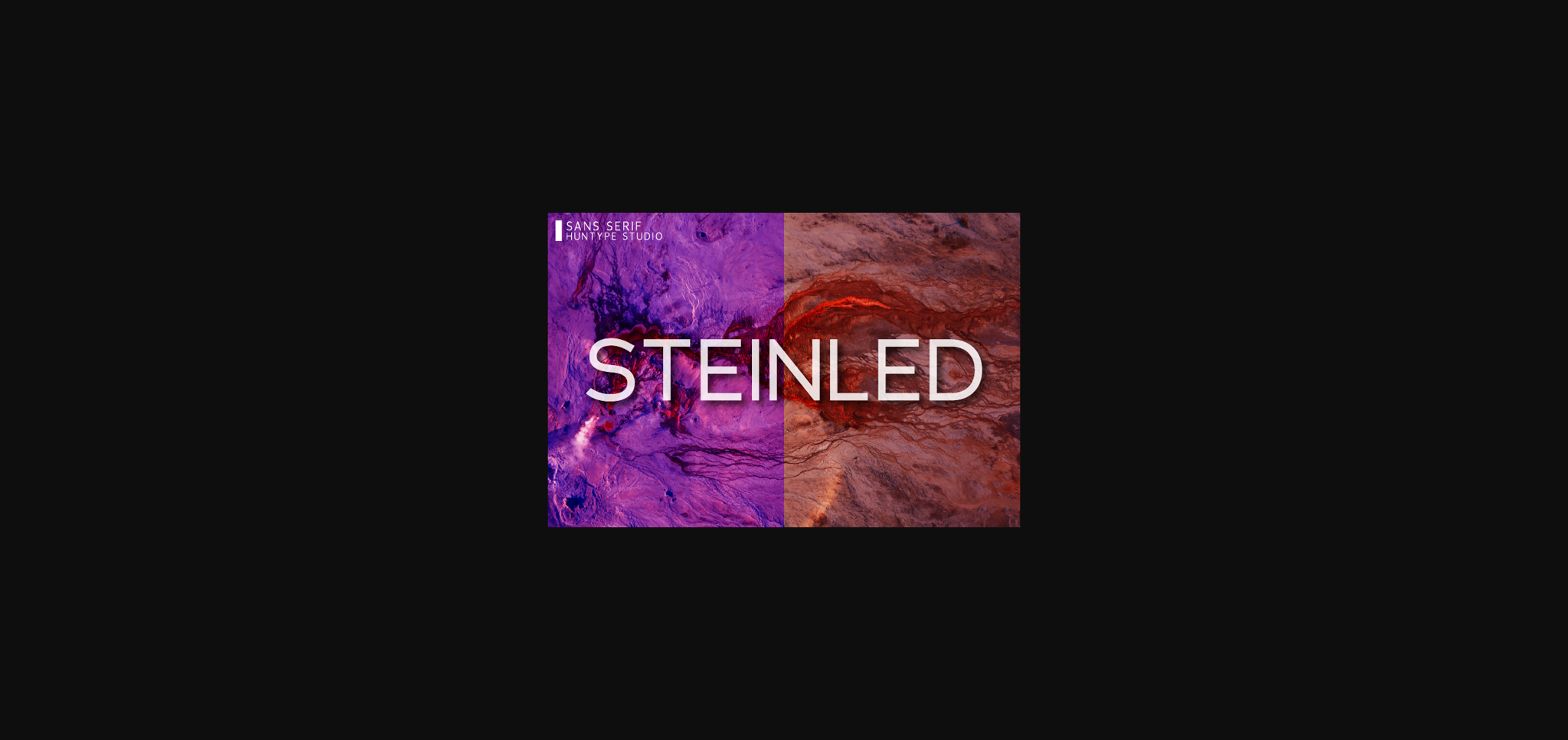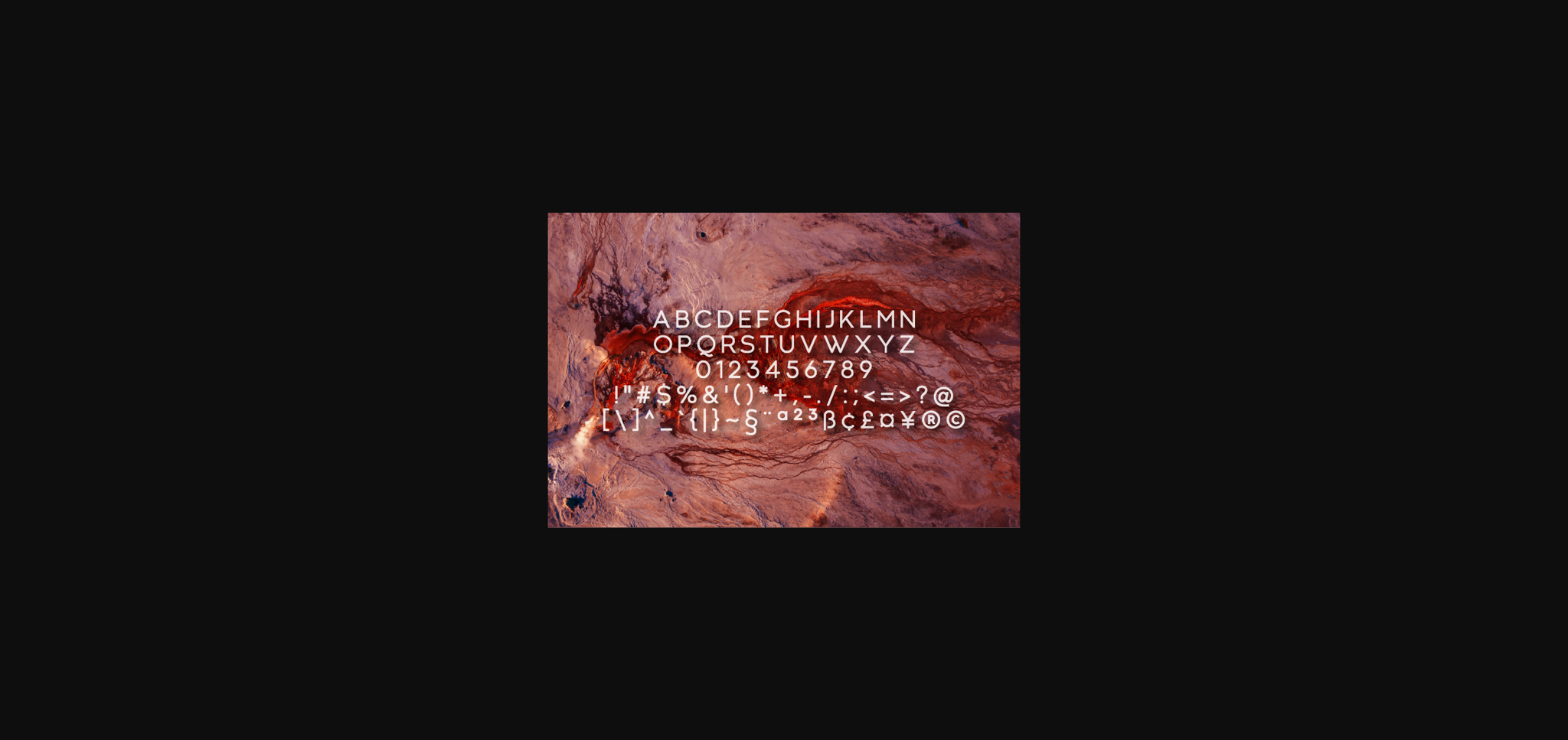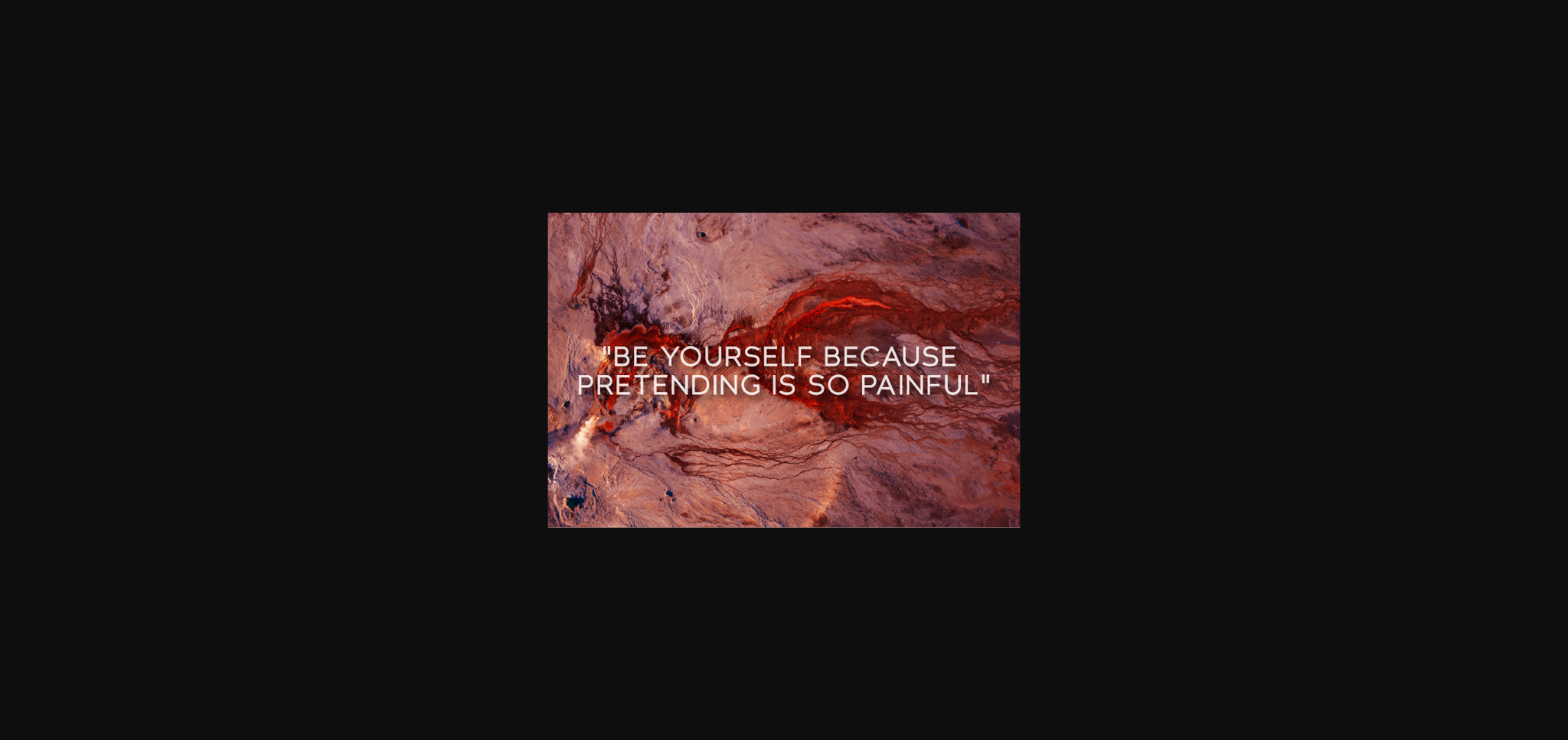
Steinled Font
About Steinled Font
Steinled is a smooth sans serif font. It will complement any design need perfectly with its perfectly balanced mix of the smooth and sharp!